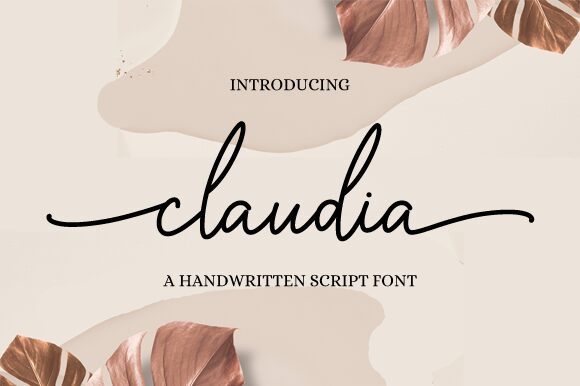
Claudia
Claudia, crafted by Graphix Line Studio, is a handwritten font that exudes a sense of personal touch and intimacy. With its extra-light weight, it presents an airy and delicate aesthetic that gracefully dances across the page. The subtle elegance of Claudia's strokes makes it ideal for projects that demand a touch of finesse — from sophisticated wedding invitations to boutique branding and editorial designs.
The font's fluidity mirrors the natural variations found in human handwriting, allowing for a connection that feels genuine and warm. Whether employed in digital formats or print, Claudia maintains its charm without sacrificing legibility. It stands as a versatile choice for designers seeking to infuse their creations with an understated yet captivating personality.